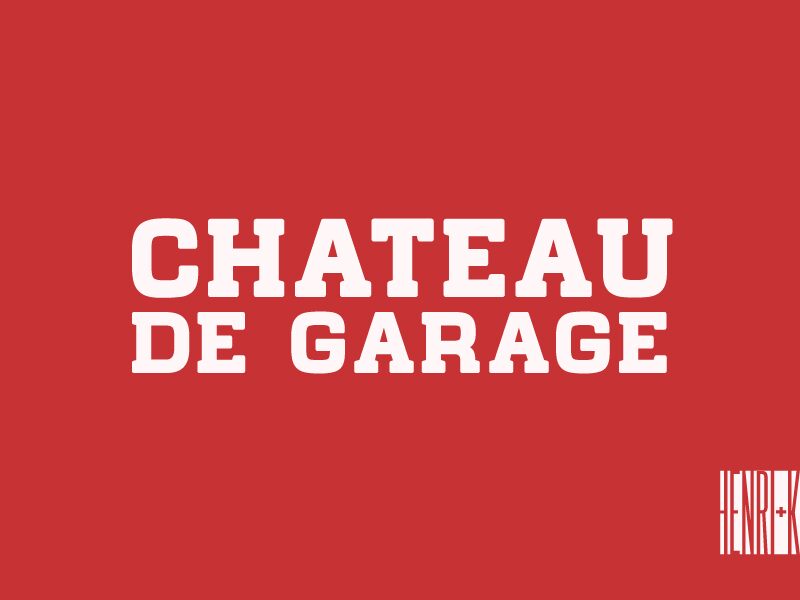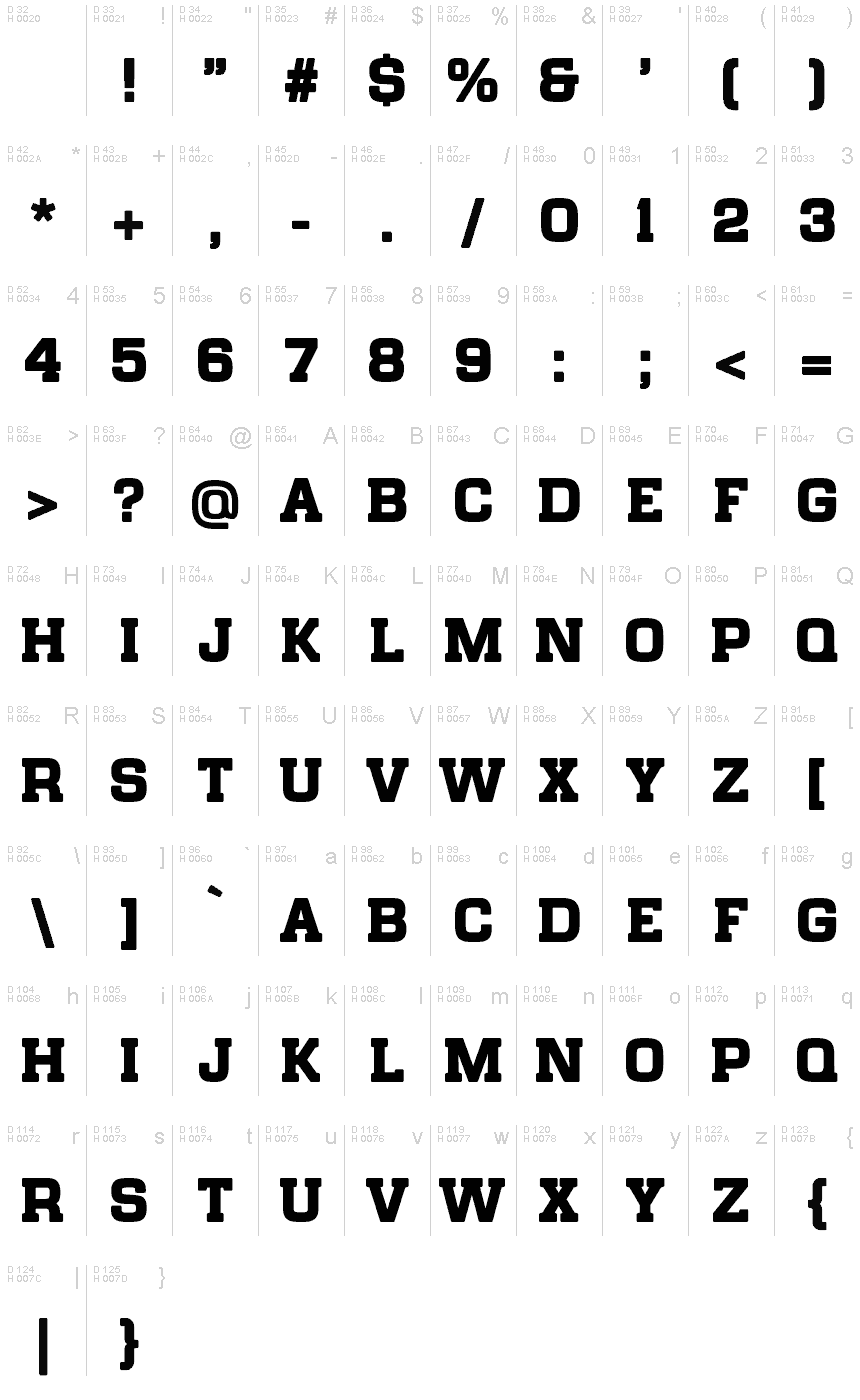
Chateau de Garage
Chateau de Garage is a bold but still soft slab serif, with a slight retro feeling.
Chateau de Garage is a font designed by HENRIavecunK in 2016.